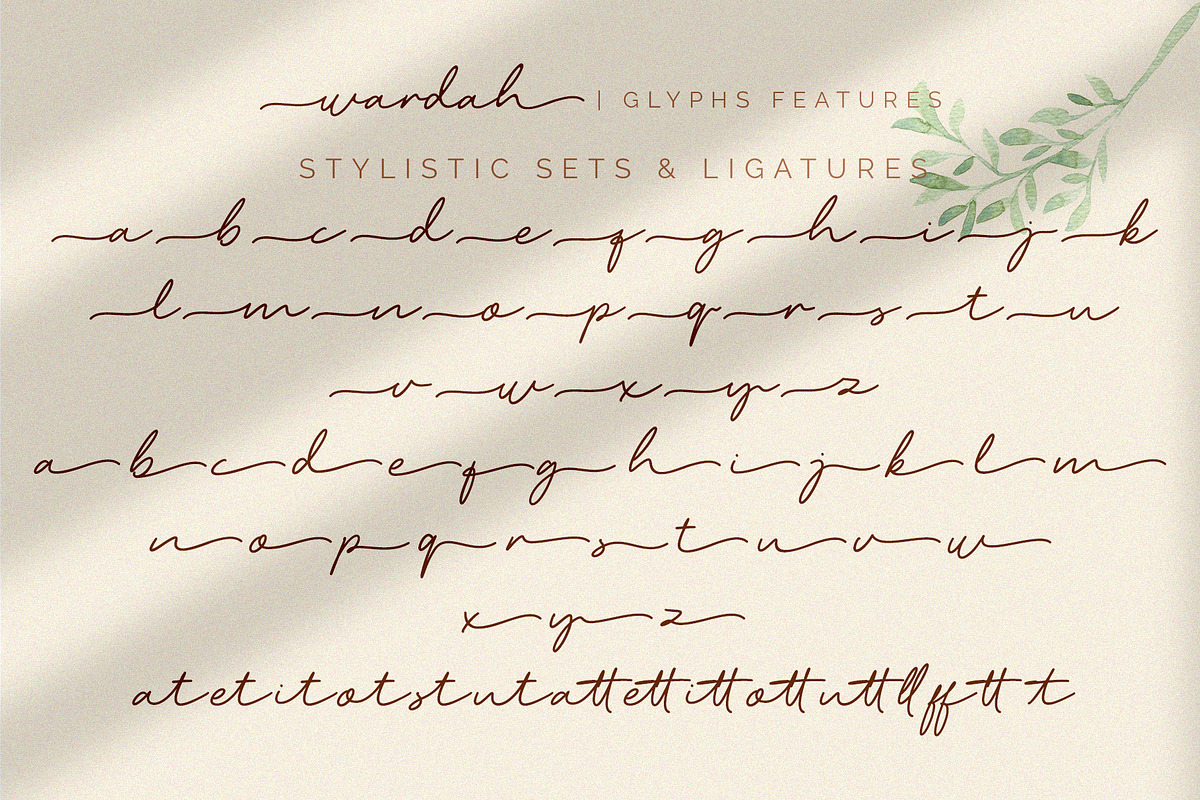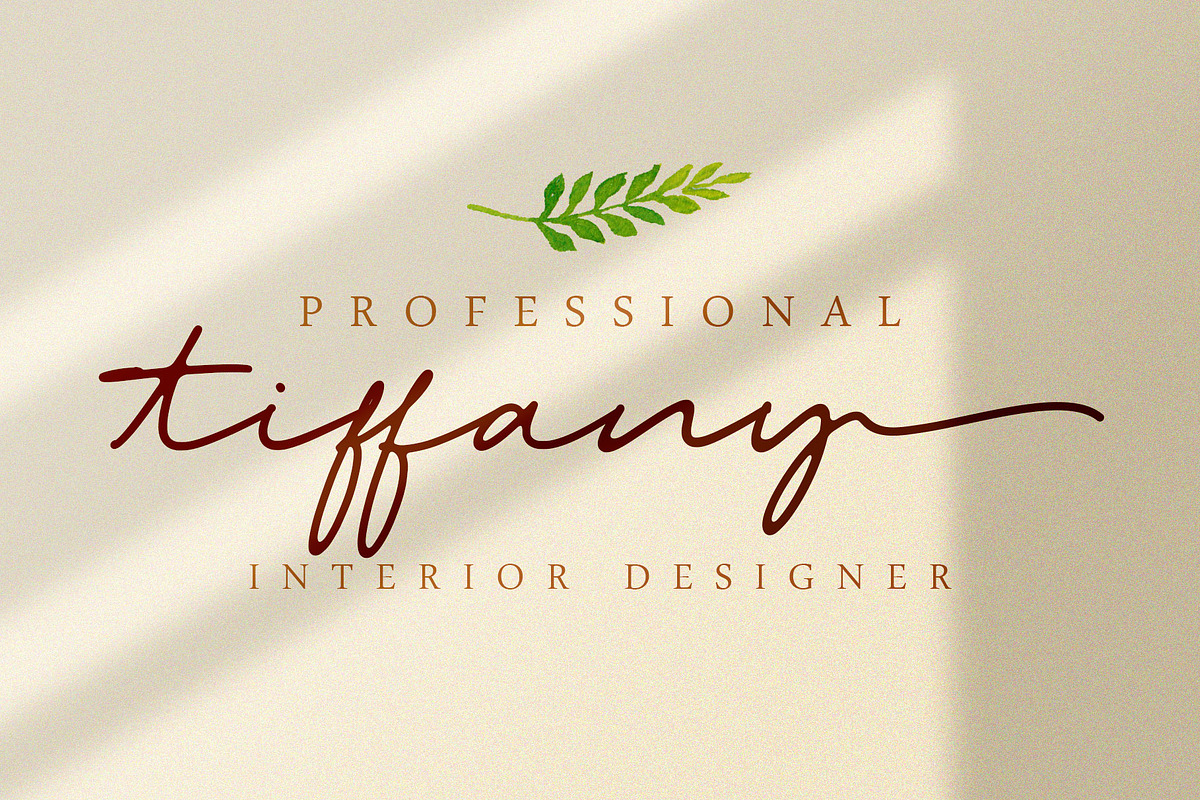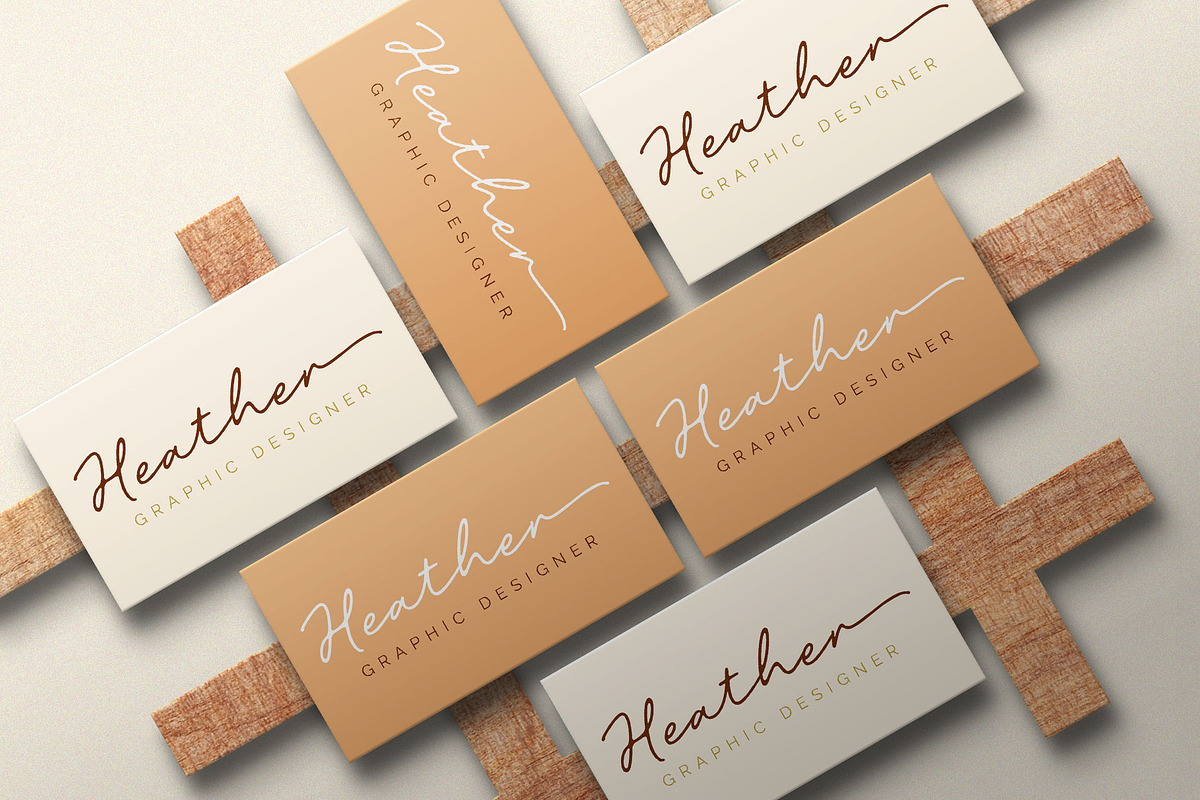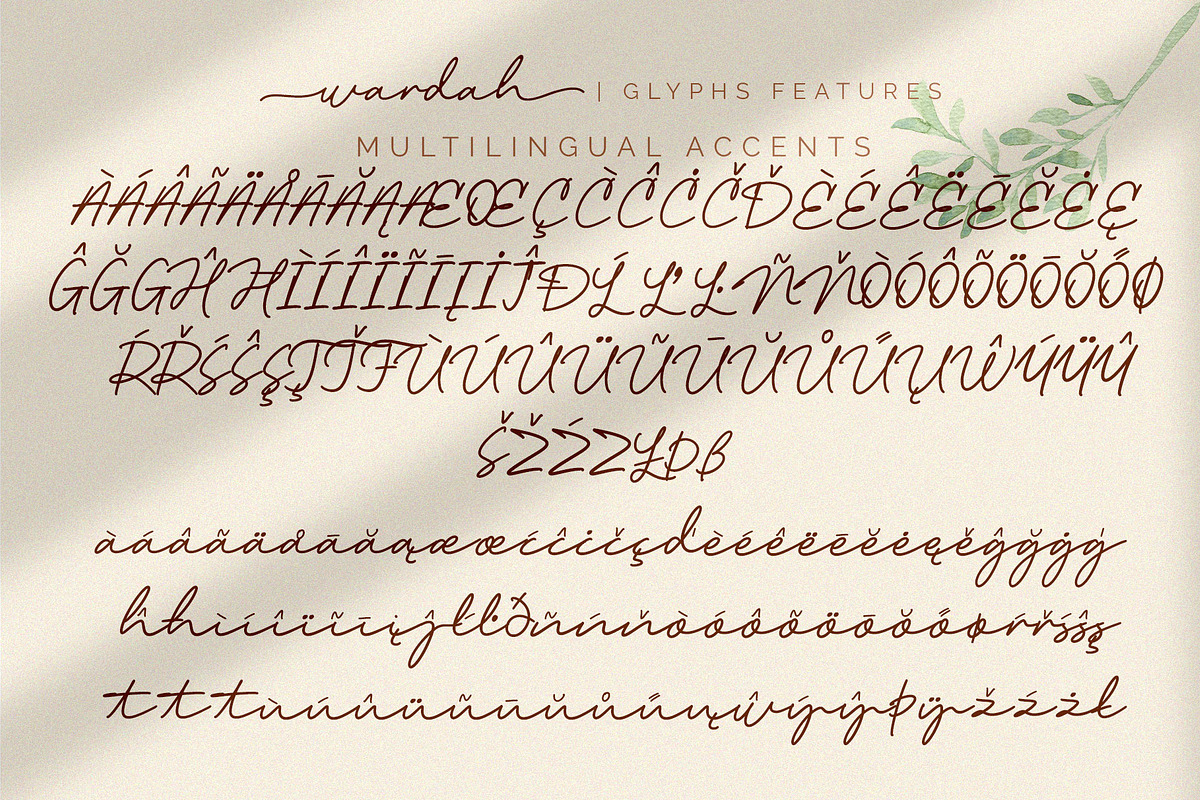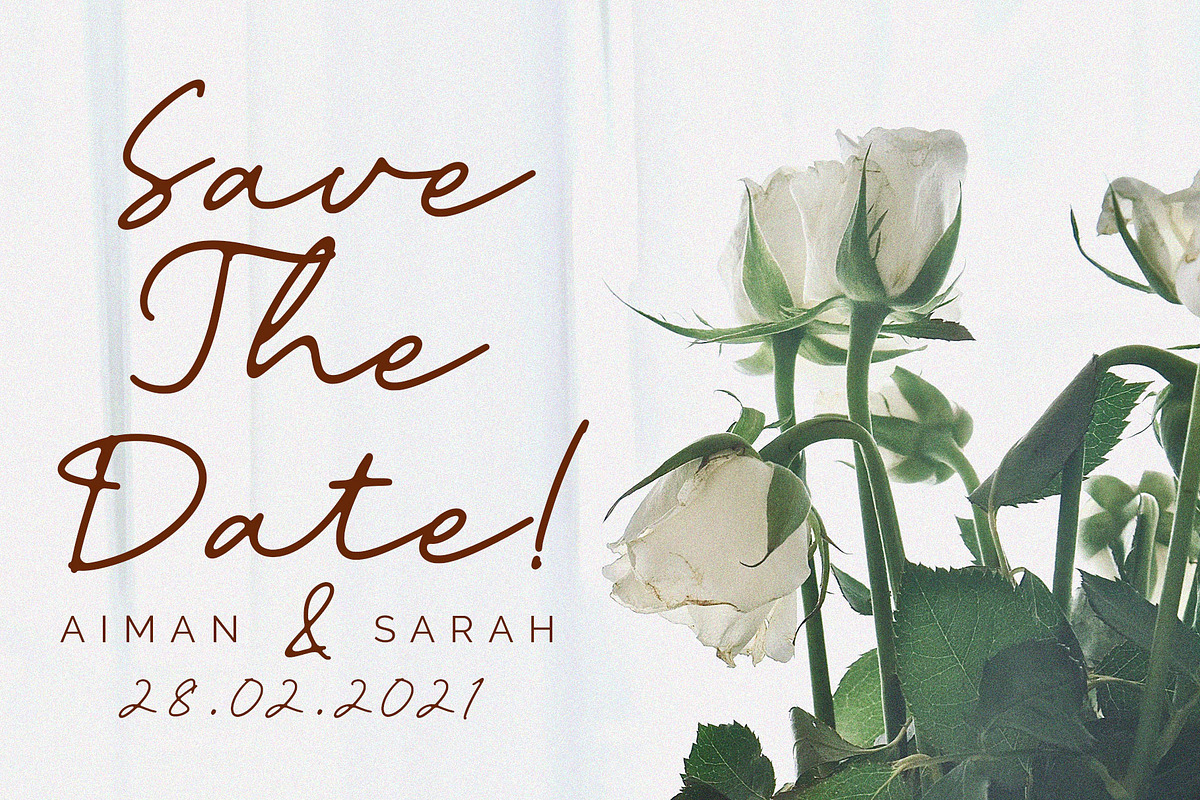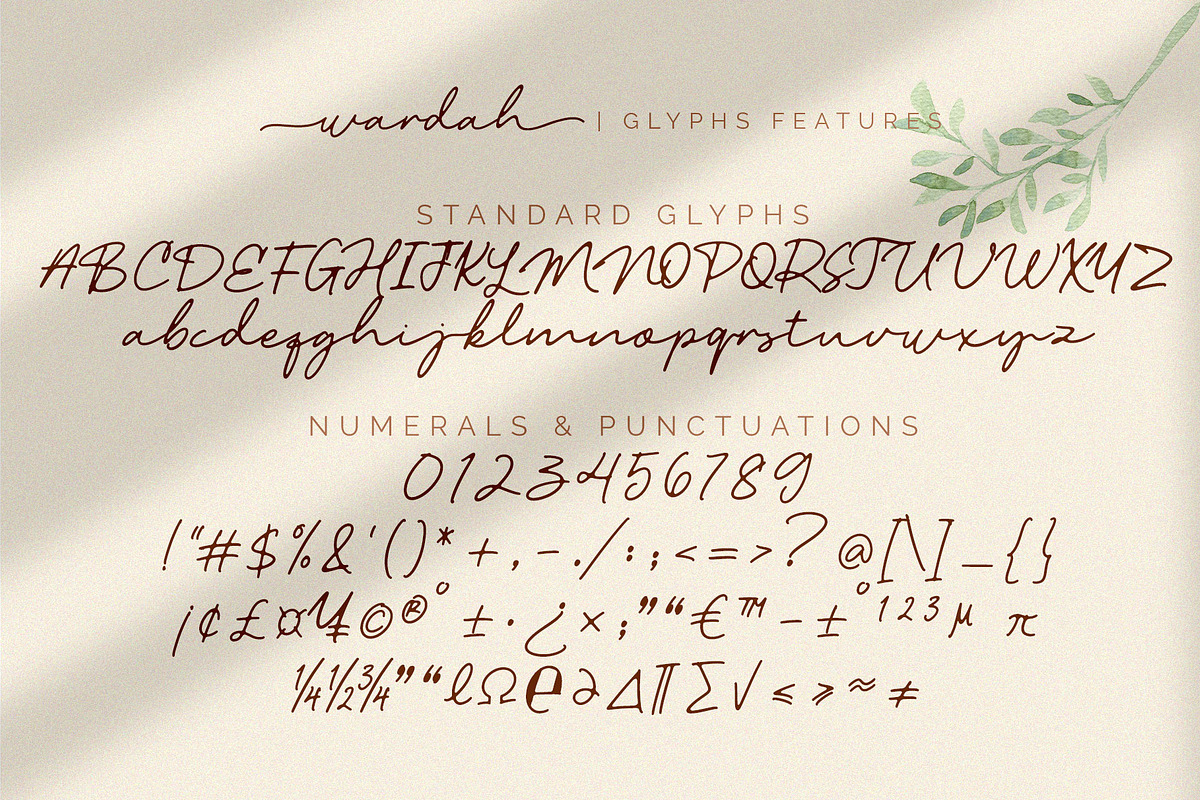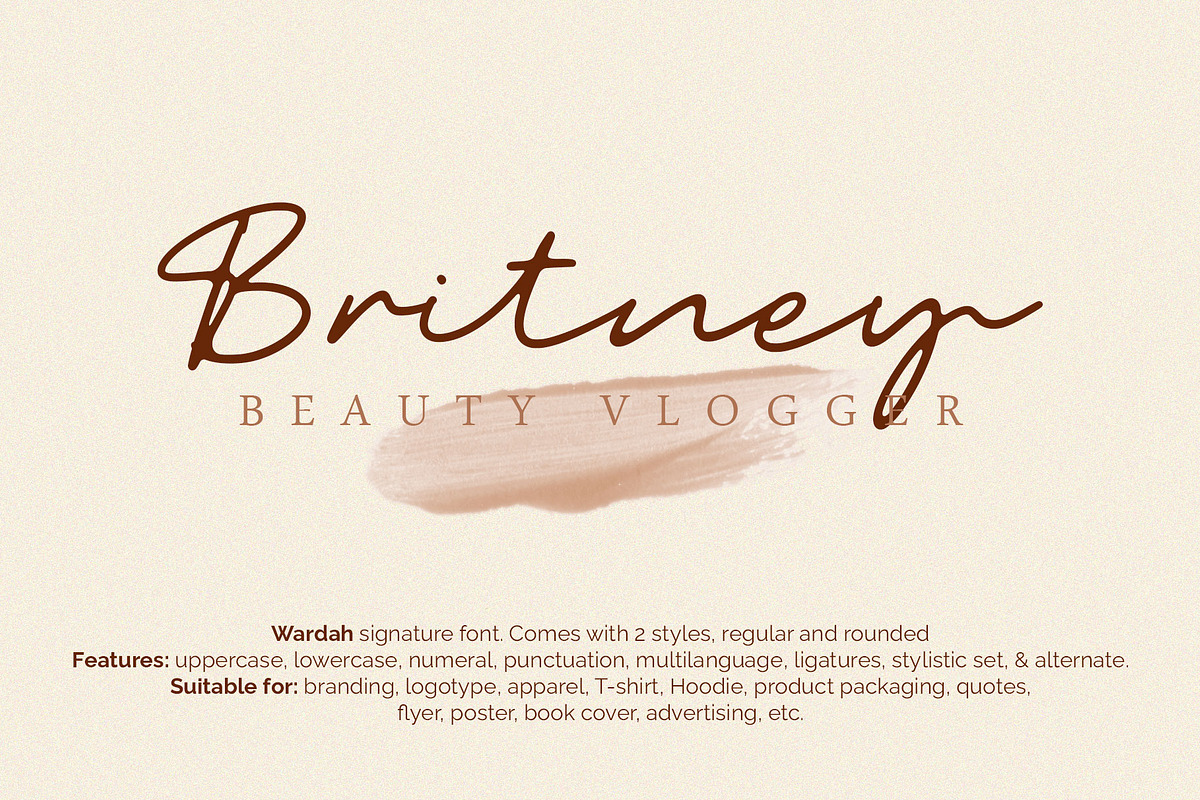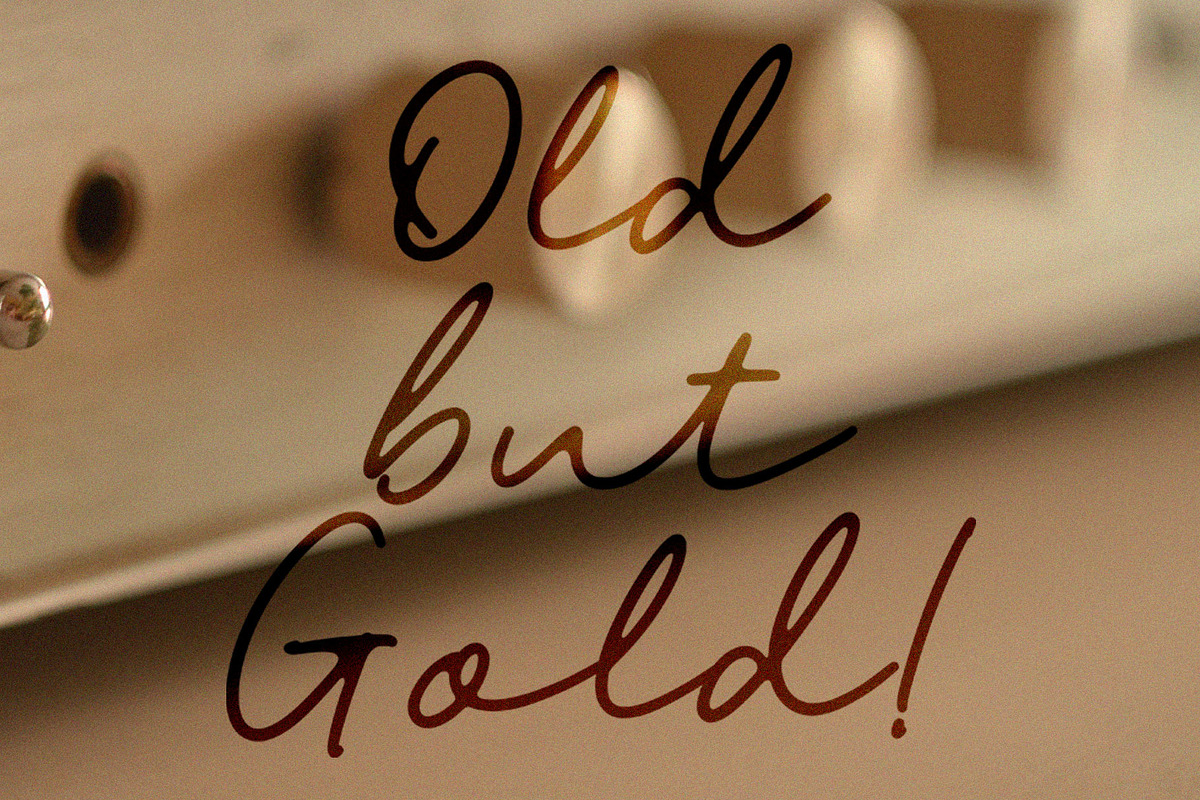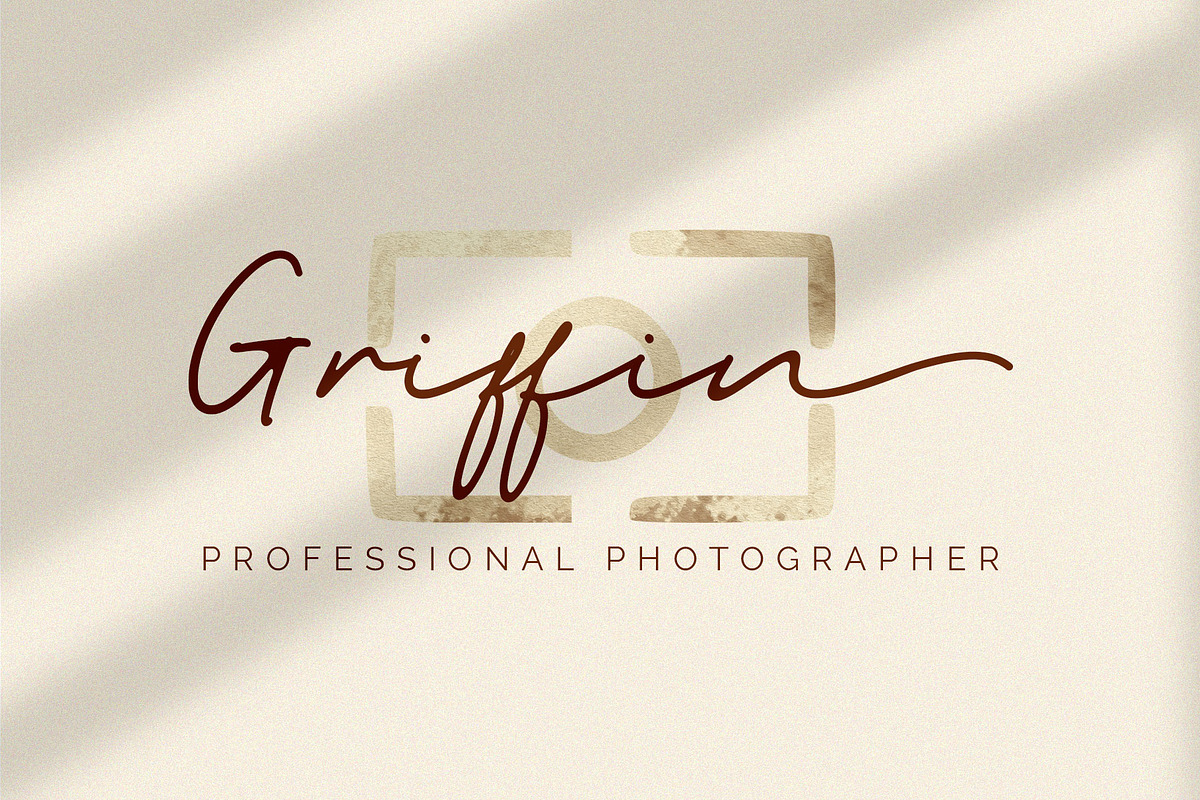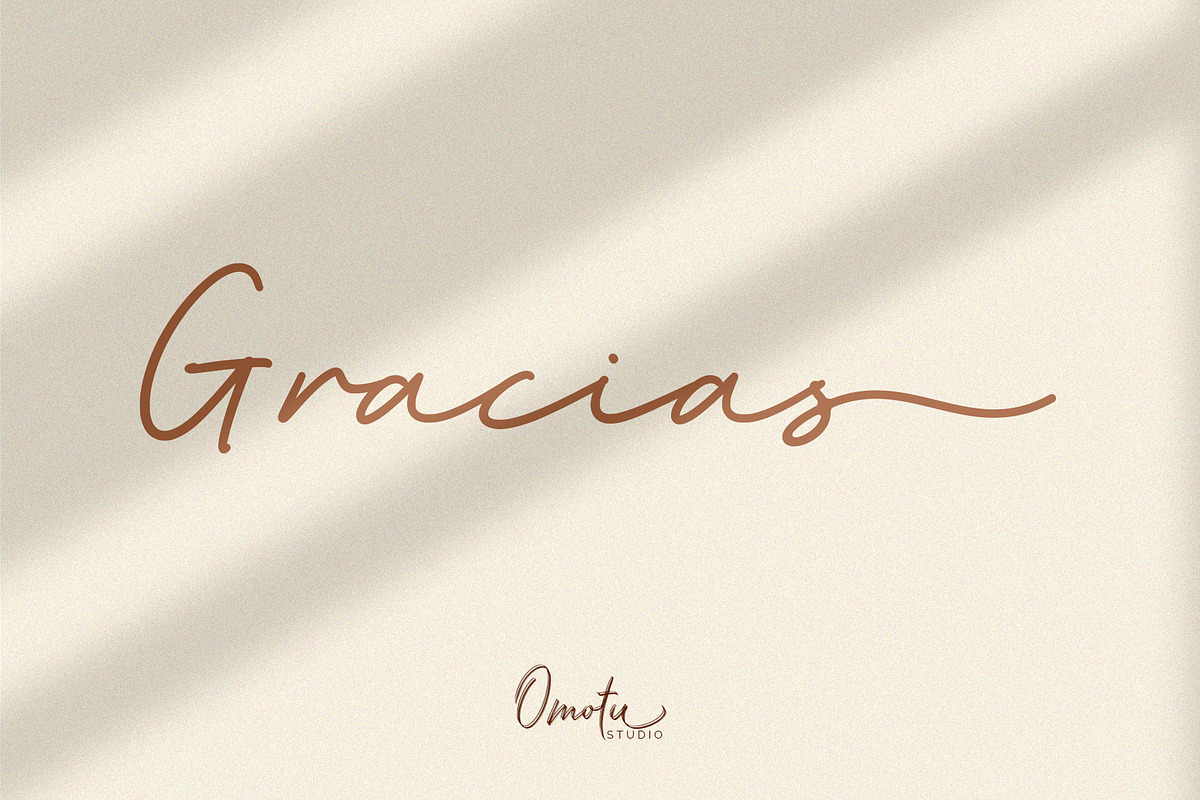
Wardah
Wardah! A handwrittent signature font. Comes with two styles, regular and rounded. Wardah font is suitable for branding, logotype, apparel, T-shirt, Hoodie, product packaging, quotes, flyer, poster, book cover, advertising, etc.
- Features: Uppercase, lowercase, numerals, punctuations, stylistic sets, alternate, and ligatures